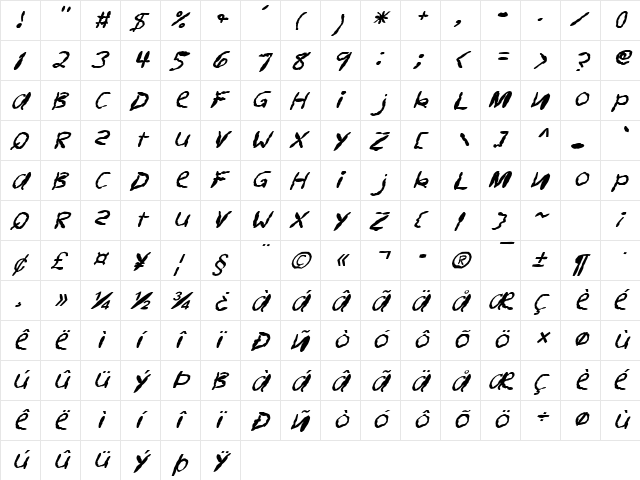
FZ HAND 11 MANGLED ITALIC Normal
Design Context for FZ HAND 11 MANGLED ITALIC Typeface
FZ HAND 11 MANGLED ITALIC flows with the natural rhythm of handwritten lettering, making it ideal for designs that call for warmth and personal expression.
Font Pairing: Combine FZ HAND 11 MANGLED ITALIC with a simple geometric sans for maximum contrast — the tension between flowing curves and clean structure is a classic typographic pairing.
Pro Tip: Use FZ HAND 11 MANGLED ITALIC for short runs of text — names, titles, or taglines. Extended body copy in script faces tires the eye quickly.